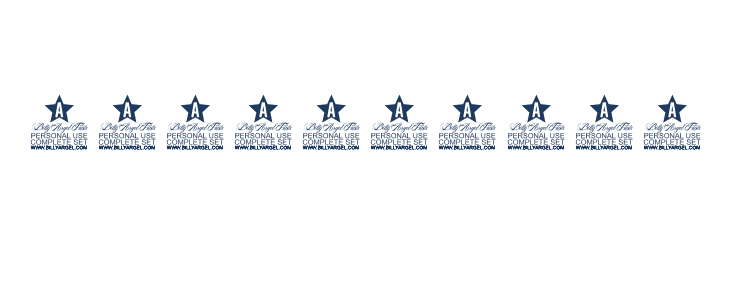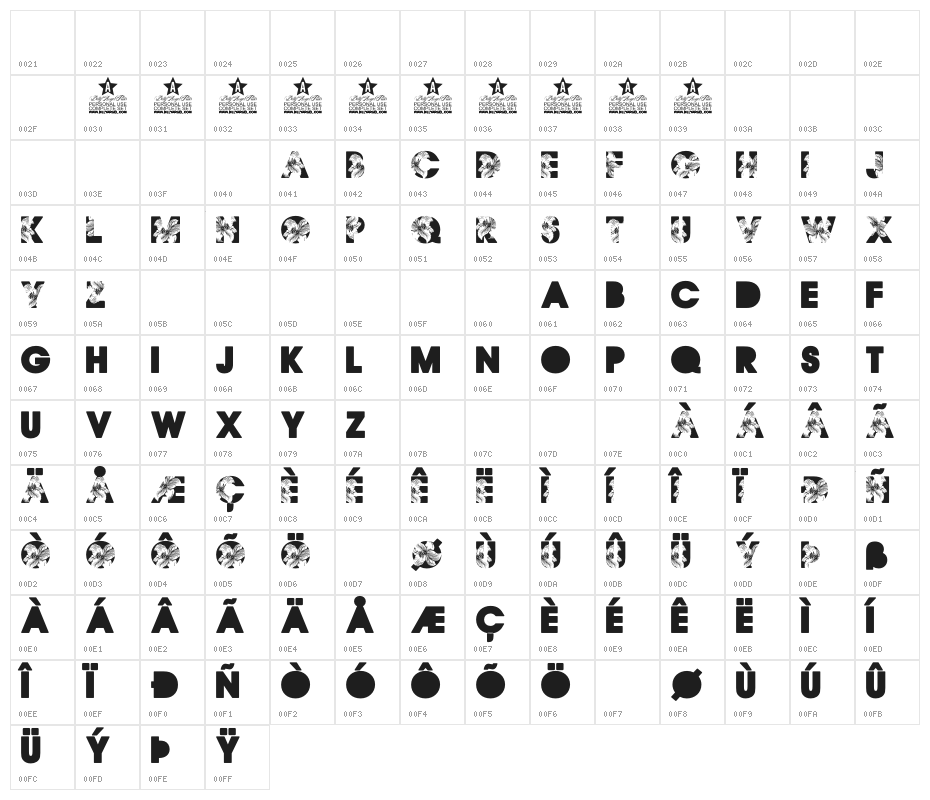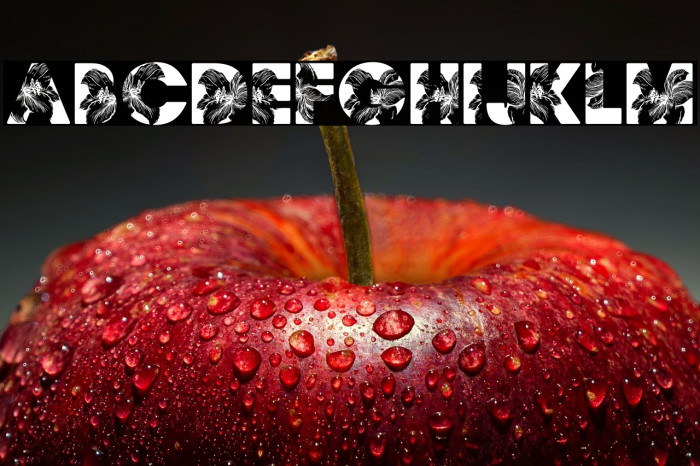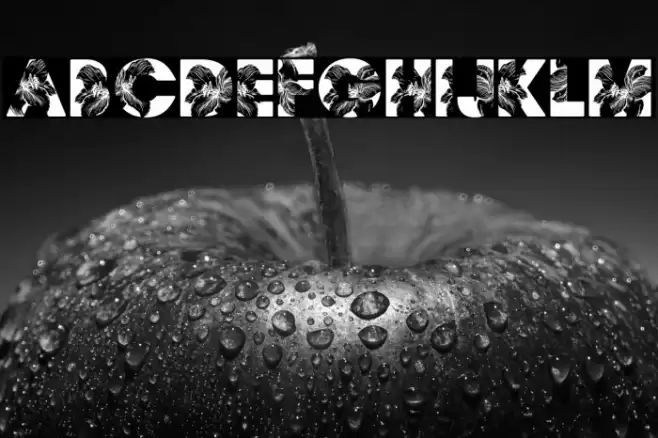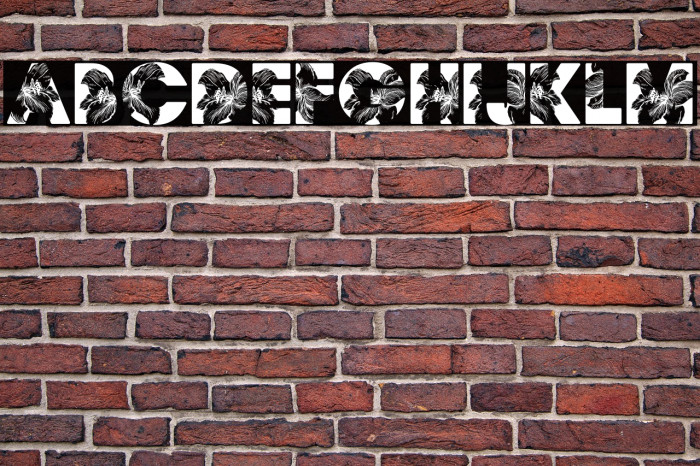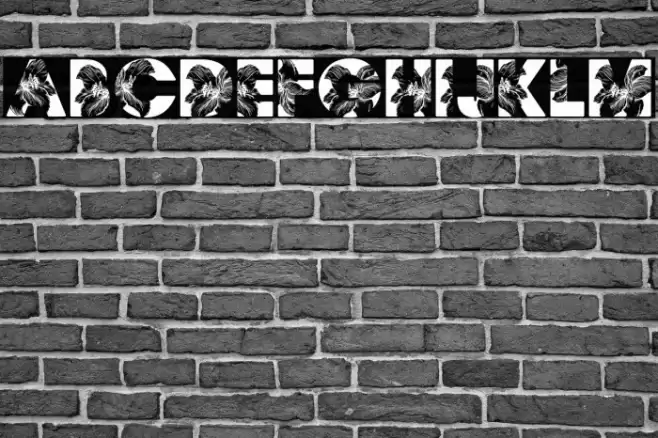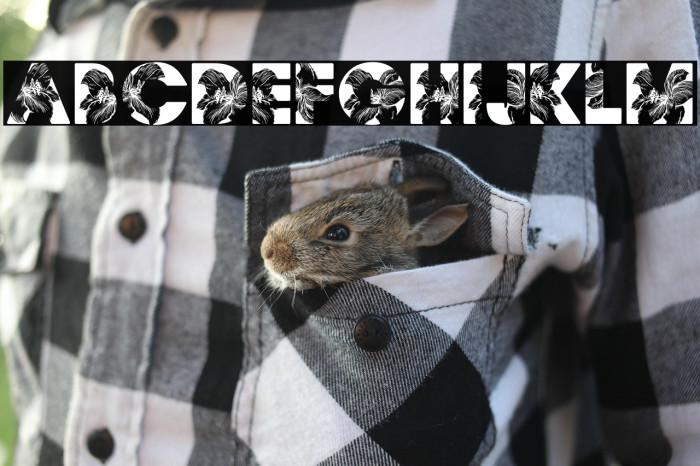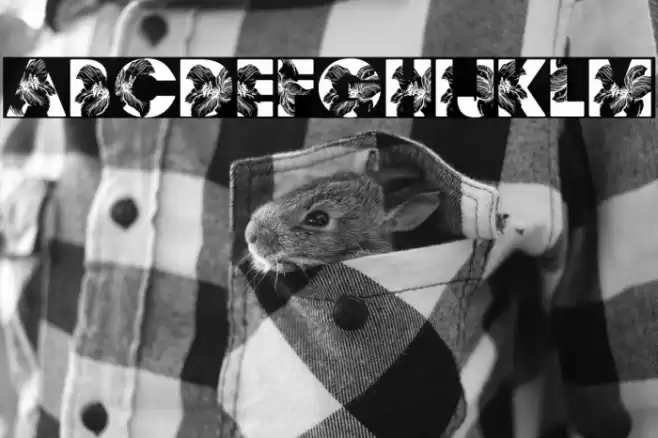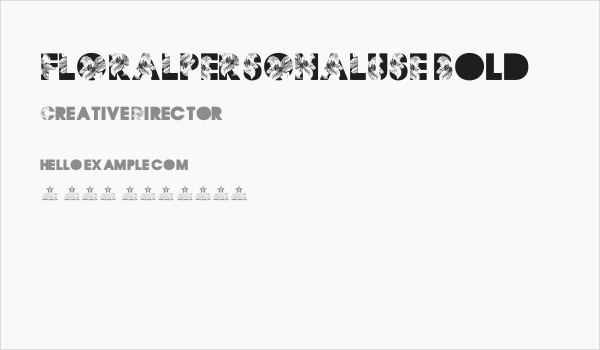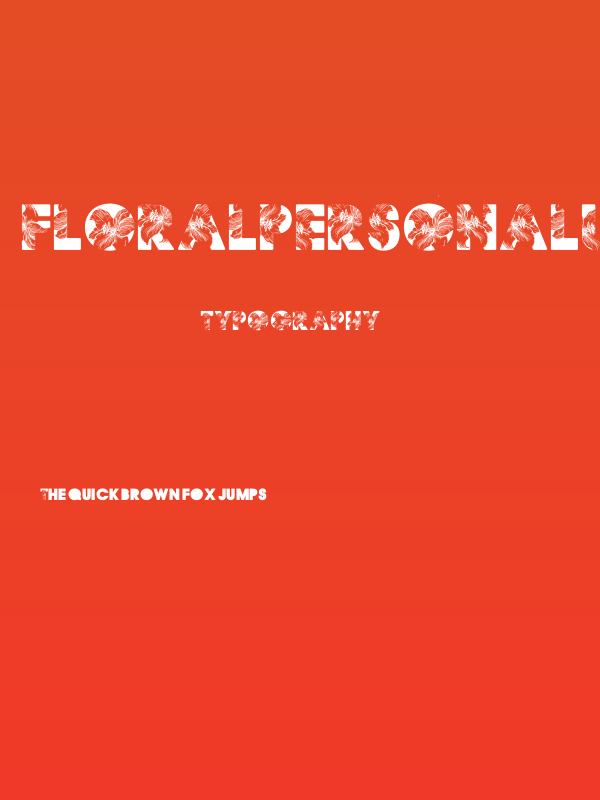
FLORALPERSONALUSE-Bold Font
FLORALPERSONALUSE-Bold Description
This font features a bold and decorative style with a floral pattern integrated into the uppercase letters. The design is visually striking, combining solid black letterforms with intricate floral details that create a unique and artistic appearance. The font is ideal for creative projects that require a touch of elegance and nature-inspired aesthetics. The bold weight of the letters ensures readability while the floral elements add a decorative flair, making it suitable for headlines, posters, and artistic designs.
| Use Case | Headlines, Logos, Decorative text |
| Proposed Projects | Ideal for wedding invitations, greeting cards, posters, and branding projects that require a decorative and artistic touch. |